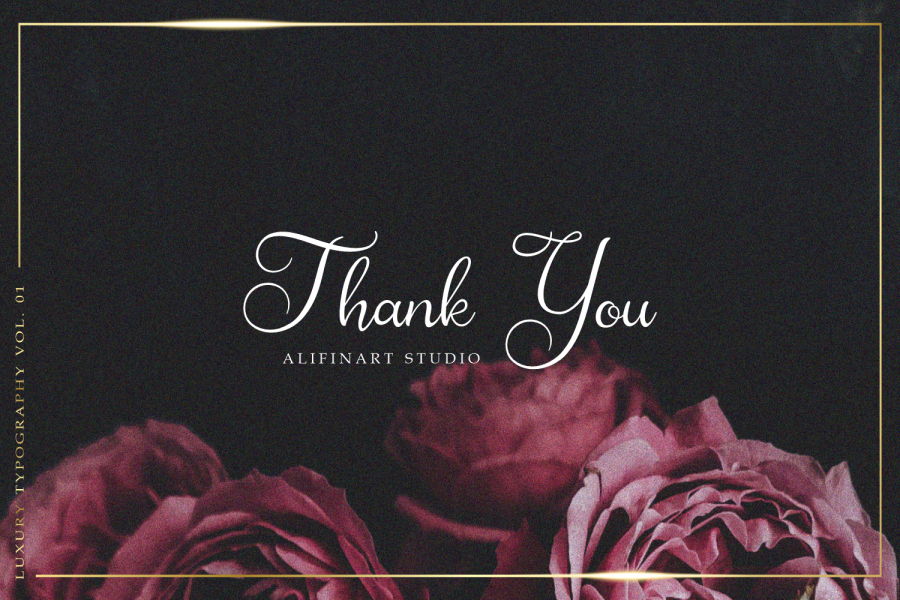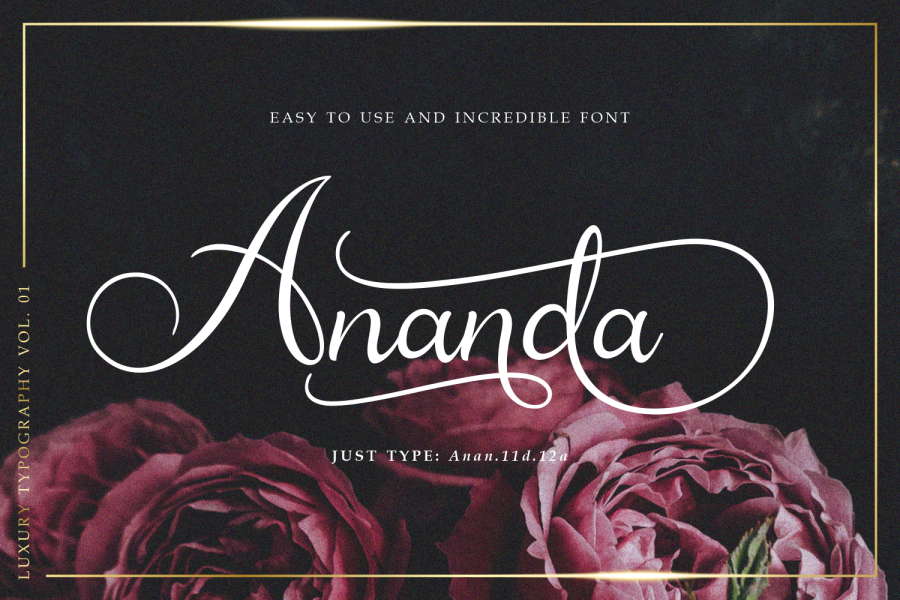
Amanah Script (Ananda) is a lovely and genuine handwritten font. It is the best choice for creating eye catching logos, branding and quotes. Every letter has a unique and beautiful touch, which will make your design come alive!